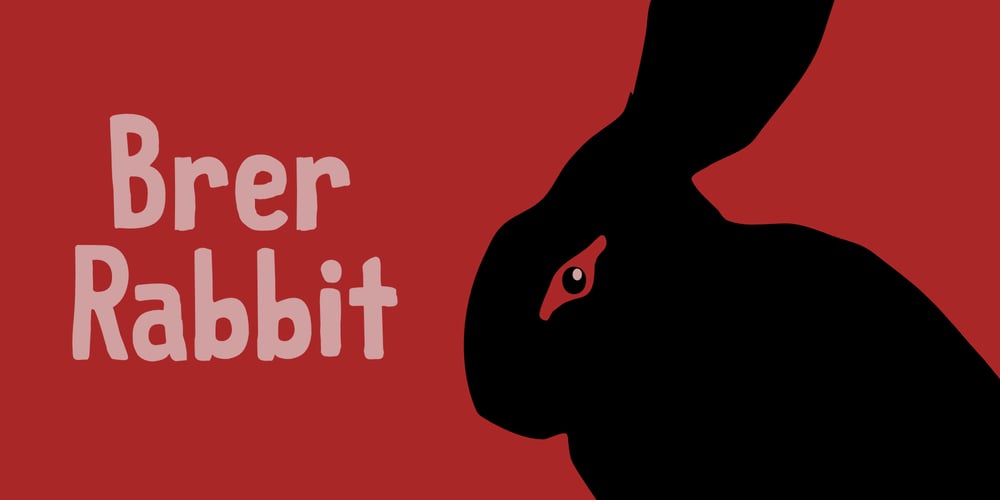
Brer Rabbit Font Family was designed by David Kerkhoff and published by Kitchen Table Type Foundry. Brer Rabbit contains 2 styles and family package options. Brer Rabbit (or Brother Rabbit) is the central figure in an oral tradition passed down by African-Americans. Brer Rabbit is a trickster, just like the other popular trickster character in African stories called Anansi the spider.Brer Rabbit was based on an old font of mine called Rabbit On The Moon.It is a nice, cute children’s book font that comes with extensive language support and Brer Rabbit himself, in the shape of the alternative asterisk glyph.